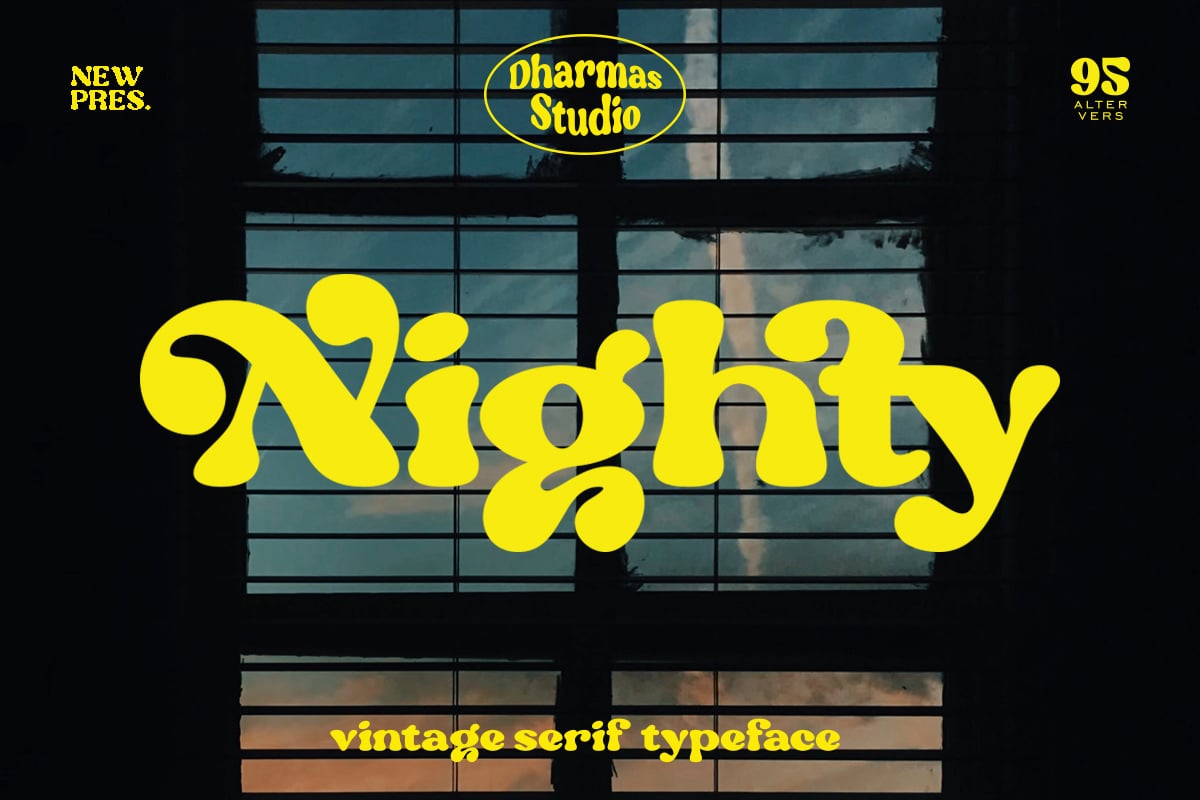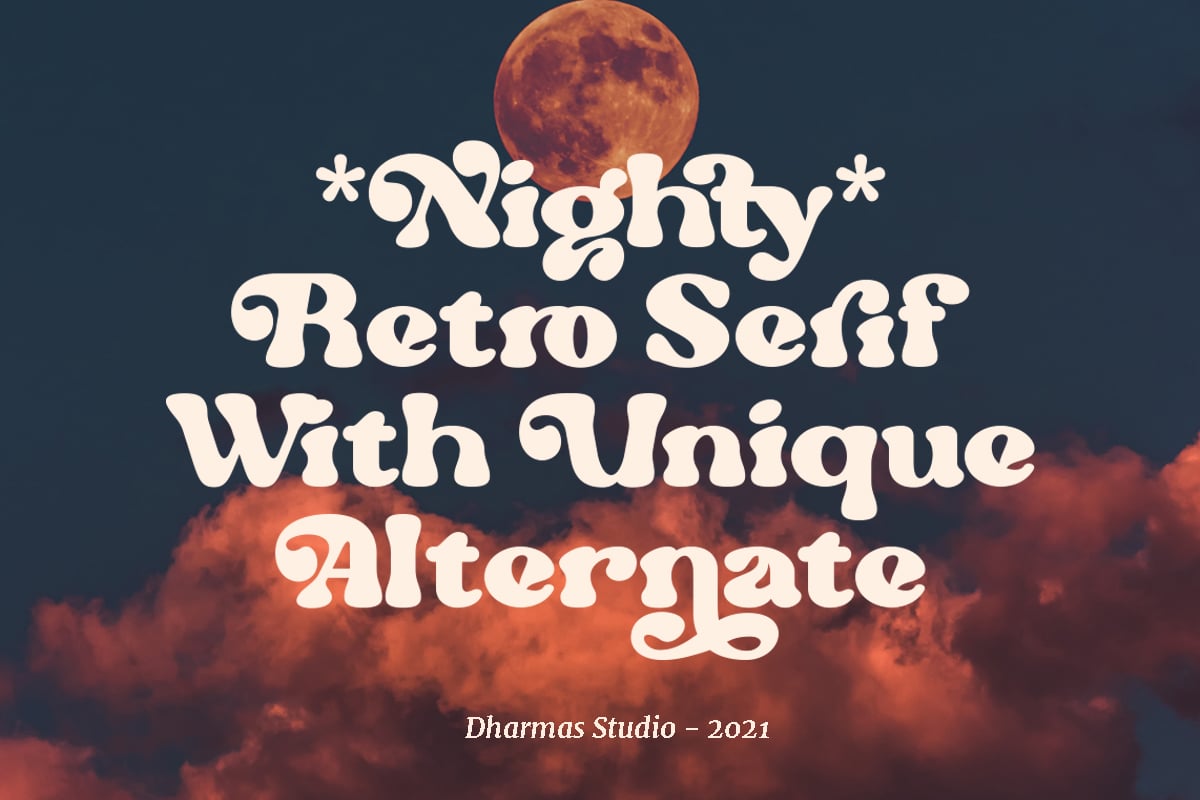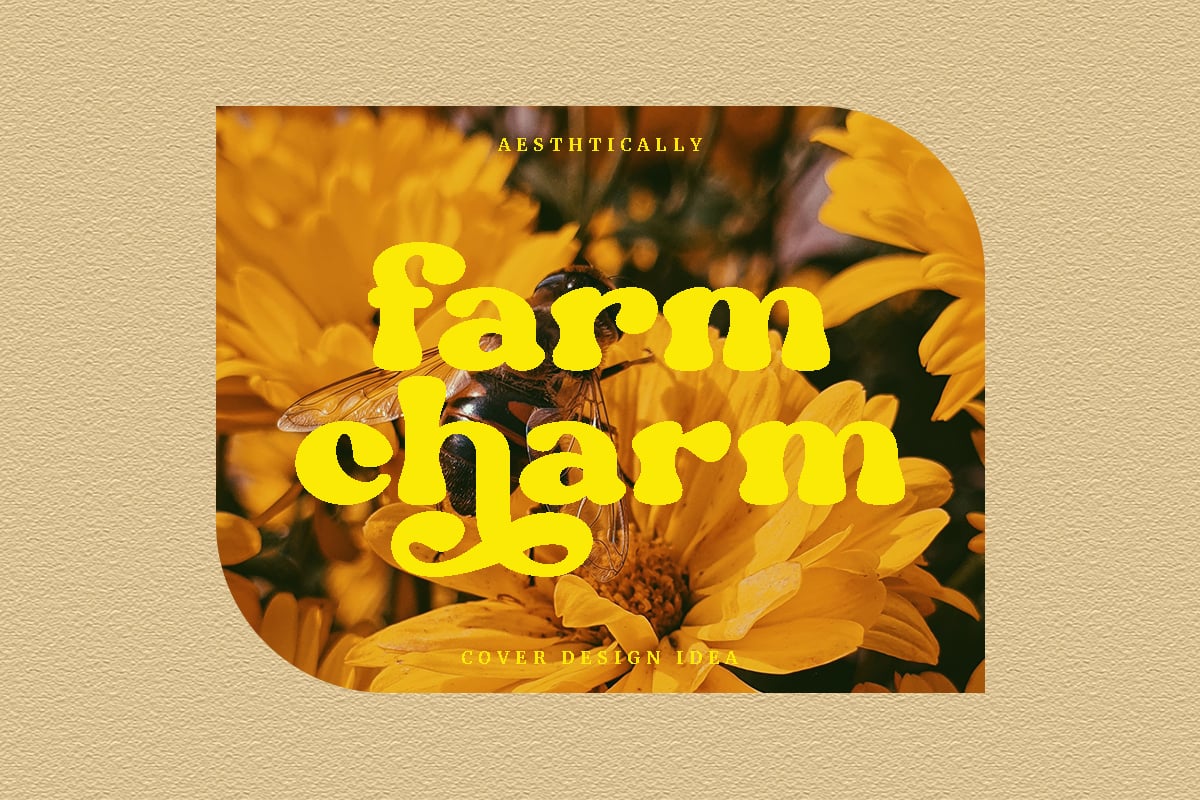
Nighty – Modern Retro Font
Nighty – Modern Retro Font is a versatile typeface ideal for various projects, including logos, branding, posters, blog headers, advertisements. The free version includes a full set of uppercase and lowercase letters, available in TTF, OTF, SVG, WOFF format.